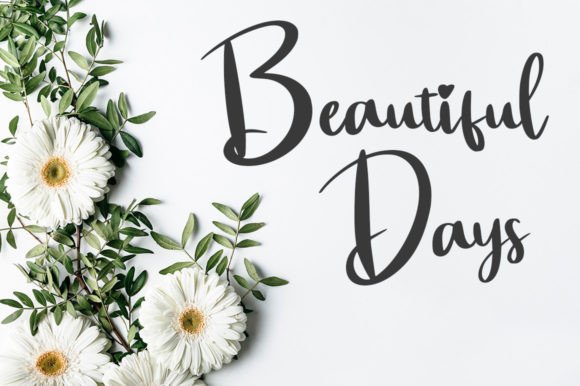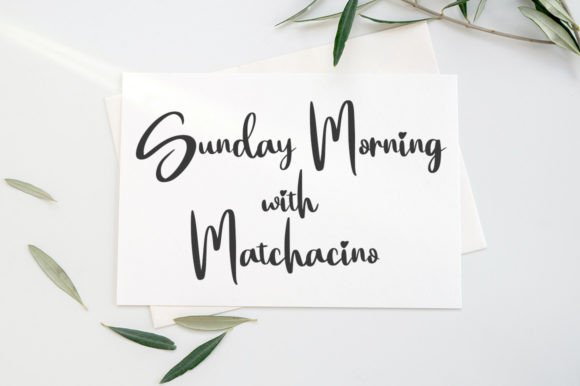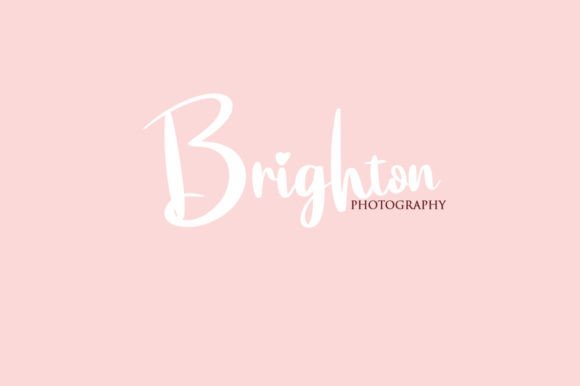
Introduction to Dreamboy Font
Have you ever been stuck in front of a blank canvas, struggling to find the perfect font to bring your creative project to life? This is a moment many designers can relate to. As you browse through various design resources, searching for that elusive ‘perfect font’, you stumble upon something special – the Dreamboy Font.
| 👤 Author | IZKcreative |
With its charming and elegant feel, the Dreamboy Font is a game-changer for designers looking to add a handwritten touch to their work. Whether it’s a wedding invitation, a thank you card, or a logo, this high-quality font is sure to elevate your design to the next level. And the best part? It’s available for free download, making it an invaluable resource for any creative project.
Key Features of Dreamboy Font
- High-quality design resource ideal for creative projects and graphic designs
- Unique, modern font style with a transparent background, allowing for easy customization
- Perfect for use in digital art, logos, and other creative projects requiring a bold, eye-catching font
- Designed to be highly versatile, suitable for use in a variety of design applications and mediums
Honest Review: Dreamboy Font
I recently stumbled upon the Dreamboy Font, and I must say it’s a great addition to any designer’s toolkit. As a design resource, it offers a unique and stylish aesthetic that can elevate your creative project to the next level.
What works well: ✨ The Dreamboy Font is available for free download, making it an accessible option for designers on a budget. It also features a high-quality design with a transparent background, which makes it easy to integrate into any design.
- Unique and stylish aesthetic
- High-quality design with transparent background
- Perfect for creative projects, such as logos, posters, and social media graphics
However, I do have a few reservations: ⚠️ While the Dreamboy Font is free, it’s not open-source, which may be a concern for some designers who value transparency in their design resources. Additionally, the font may not be as versatile as some other options on the market.
Overall, I think the Dreamboy Font is a solid choice for designers who are looking for a high-quality, free font to add some personality to their creative project. While it may not be perfect, it’s a great resource to have in your toolkit.
Tips for Getting the Most Out of Dreamboy Font
For a high-quality design, use the Dreamboy Font in conjunction with a transparent background to create a modern and sleek look. You can also experiment with different font sizes and colors to add visual interest to your design.
The Dreamboy Font is ideal for creative projects, such as social media graphics, blog posts, and marketing materials. It’s also a great resource for designers who want a high-quality, free download font for their design projects.